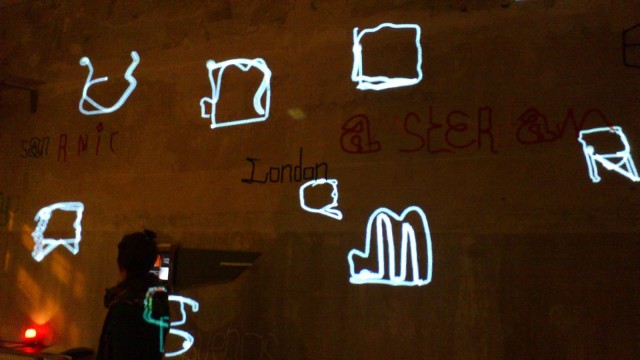
Sweatyfeet is an experimental typeface drawn via GPS in a process known to some as Figurerunning. The concept of Figurerunning has existed for a while now, dubbed as art meets exercise, and now a Letters Are My Friends, a group of type enthusiasts, have created the first GPS-based typeface using the app.
Fans of experimental type may be familiar with Running Alphabet, a similarly drawn project started last year, but as it is currently unfinished, Sweatyfeet may have beaten it to the punch. Obviously, who’s first isn’t what really matters. What does matter is that designers and technologists are collaborating to push the boundaries of type design in every way possible.
Figurerunning has come a long way since its inception. What started as a screenshot in Runkeeper has now become a dedicated app with a quirky user-base of creative runners. Letters Are My Friends is an equally creative and quirky group, making the combination as worthwhile as it is outright strange.
Working with the iPhone app FigureRunning, an exhibition this month merged the activities of jogging and drawing, scrawling letter forms by recording a path across a city grid. App users in 13 cities from San Francisco to Amsterdam to Tokyo made the letters, giving the alphabet a varied and personal flair. Some of the participants spelled out entire words (one gave his wife her whole name across the city of Bussum); then the designers picked out 26 faces.
As typographical design, it’s far from perfect, but the informal quality is half the fun. The design is also collaborative: the designers assembled a charming book full of faces, stories, and maps.
Launching the typeface itself filled a Sunday afternoon and evening in Kreuzberg, as exhibited in the photos. But wherever you are, you can enjoy the typeface: it’s available as a free download.
If typography isn’t your thing, you can draw anything you want with Figurerunning. Then, see if your friends can guess what you have drawn. No matter what, it’s awesome to see how technology can turn everyday activities into geeky entertainment — especially since drawing of any sort is inherently creative.